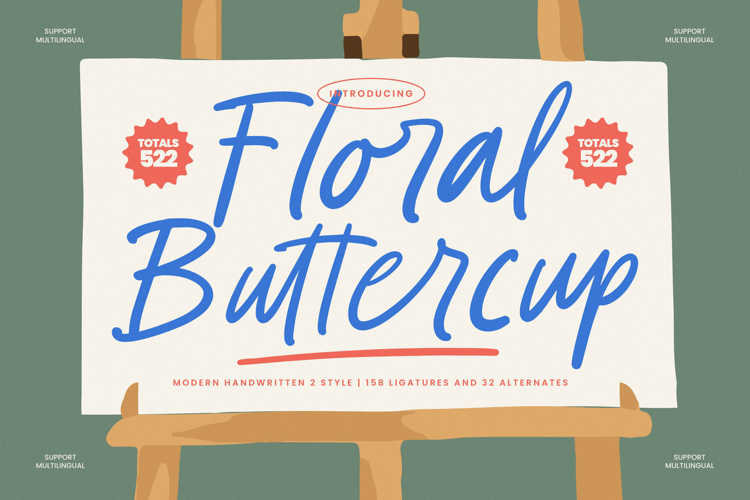
Floral Buttercup - Modern Handwritten Font
Inject immediate personality and charm into your design projects with Floral Buttercup - Modern Handwritten Font. This expressive typeface captures the authentic energy of human touch, delivering a fresh, dynamic feel. Characterized by its confident flow and fluid connections, it avoids the stiffness often found in digital scripts, lending an undeniable handcrafted aesthetic to any piece. It is the perfect blend of casual spontaneity and professional polish, making your headlines instantly memorable and distinct.